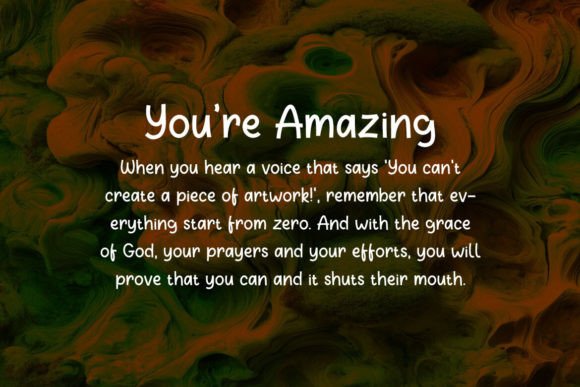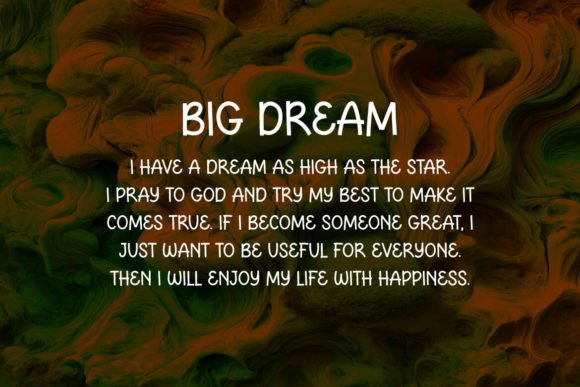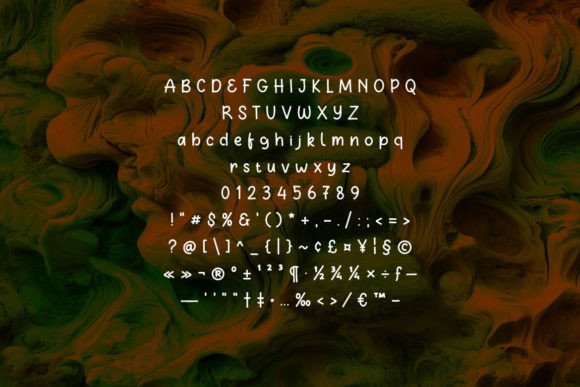
Bring Your Designs to Life with Backy Font
Have you ever stared at a blank page, trying to come up with the perfect idea for a design project, only to be inspired by a favorite comic book or cartoon? The vibrant colors, quirky characters, and playful tone can spark a burst of creativity, guiding your vision for a unique and engaging design. This is exactly the kind of inspiration that **Backy – Clean Comic Font** is designed to evoke.
With its crisp lines and clear characters, **Backy – Clean Comic Font** is the perfect choice for designers looking to add a touch of whimsy to their projects without sacrificing clarity and readability. This versatile typeface is ideal for comic book enthusiasts and professional designers alike, offering a unique and engaging font style that can elevate any design project.
Whether you’re designing a playful logo, an eye-catching poster, or a captivating comic book, **Backy Font** is the ideal choice to make your text stand out. By combining the fun of comics with the sophistication of modern typography, **Backy Font** brings your designs to life and helps you convey your message effectively.
Key Features of Backy Font
- Unique Characteristics: Backy Font features a unique blend of modern and vintage elements, with intricate details and subtle texture, making it perfect for creative and artistic projects.
- Language Support: Backy Font supports a wide range of languages, including Latin, Cyrillic, and Greek alphabets, making it suitable for international and multilingual projects.
- Font Weight and Style: Backy Font is available in multiple font weights, ranging from Light to Bold, and includes various style options, such as Regular, Italic, and Bold Italic.
- Scalability: Backy Font is designed to be highly scalable, ensuring that it remains legible and visually appealing even at very large or very small font sizes.
Designer Review: Backy Font
Overall, I’d say Backy Font is an interesting choice for a font. It’s certainly unique and grabs your attention. ✨ The font has a playful, quirky vibe that’s perfect for a children’s book or a fun, lighthearted project.
Here are some things that work well with Backy Font:
- ✨ Its irregular, handwritten feel adds a touch of personality to any design.
- ✨ The font is highly legible, making it a great choice for body text or headings.
- ✨ Backy Font comes in a range of weights, from light to bold, giving designers flexibility when choosing the perfect look.
- ⚠️ The font may be too playful for more formal or serious designs.
- ⚠️ Some letters, like the ‘q’ and ‘j’, can be a bit difficult to read.
- ⚠️ Backy Font may not be the best choice for large blocks of text, as its irregularity can make it harder to scan.
Overall, I’d recommend Backy Font for designers looking for a fun, attention-grabbing font for a specific project. However, it may not be the best choice for every design.
Tips for Getting the Most Out of “Backy Font”
To get the most out of “Backy Font”, use it for:
- Titles and headings to add a unique touch.
- Body text to create a cohesive look.
- Emphasizing important information or calls-to-action.
“Backy Font” is commonly used for:
- Marketing materials such as brochures and flyers.